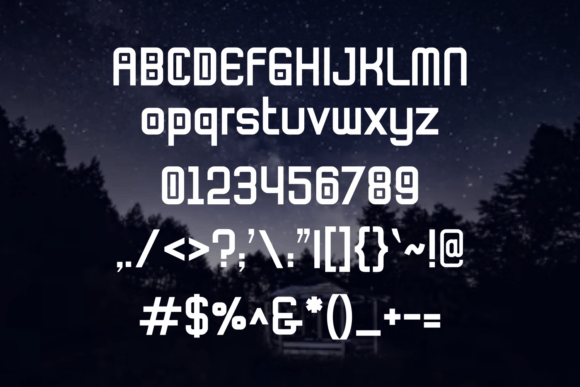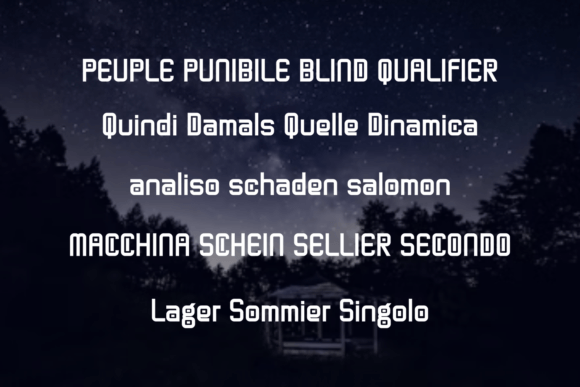
Introduction to Drogba Font Font
Fonts play a crucial role in design, and the Drogba Font font is a typeface that brings both character and versatility to any project. Whether you’re working on a branding project, a website, or a print design, the Drogba Font font offers a unique style that can elevate your work.
| π Font Name | Drogba Font |
| π€ Author | lelevien |
Drogba is a fun and unique display font.
No matter the topic, this font will be an incredible asset to your fontsβ library, as it has the potential to elevate any creation .
Key Features of Drogba Font Font
Why Choose Drogba Font Font?
The Drogba Font font is more than just a typeface β it’s a design tool that helps you communicate your message with style and clarity. Its unique character set and versatile design make it suitable for a wide range of applications, from elegant invitations to bold headlines.
With its carefully crafted letterforms and balanced proportions, the Drogba Font font ensures readability and visual appeal across all mediums.
What makes Drogba Font font special?
The Drogba Font font stands out with its unique design, exceptional readability, and versatility across various design applications.